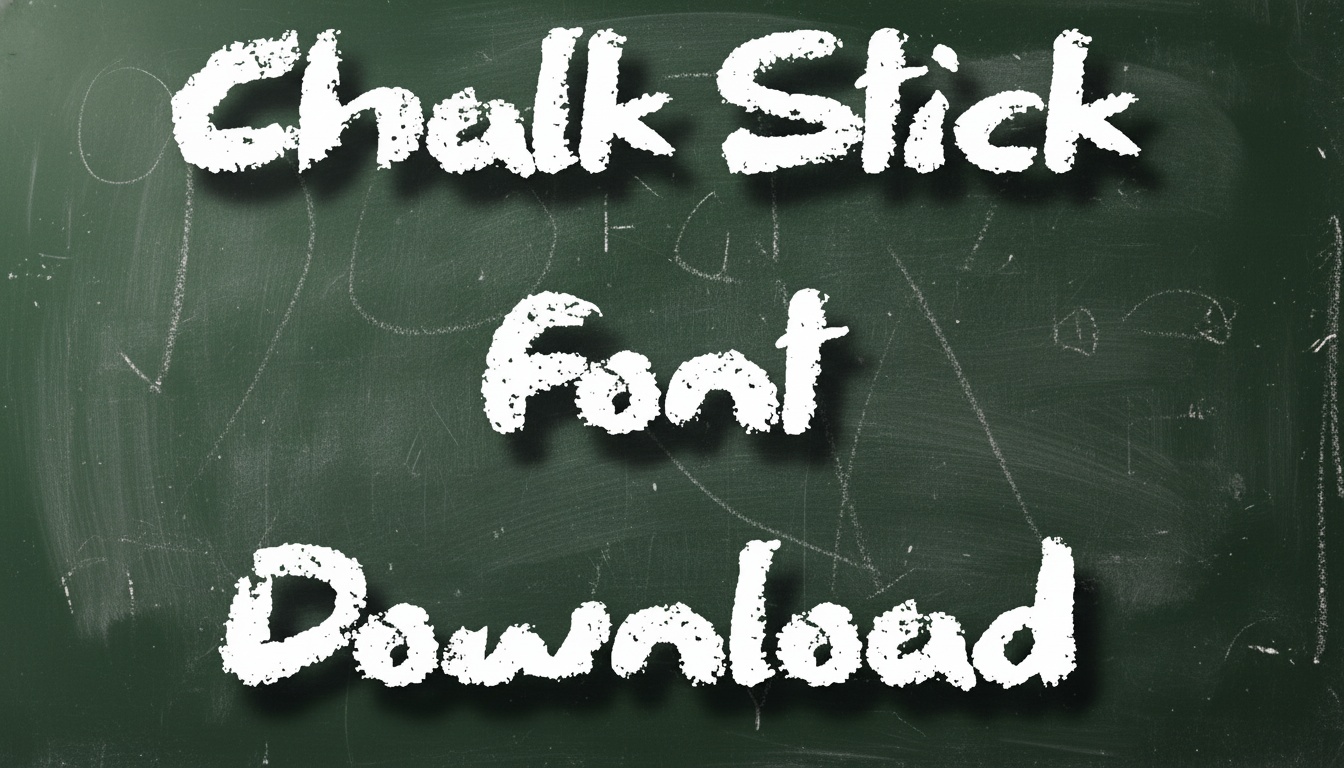
Chalk Stick
Chalk Stick is a trash font designed by Jonathan S. Harris and published by Jonathan Stephen Harris (2019). Rough edges and a worn, distressed texture give it a raw, DIY look. It's a free download, and you can try it with your own text in the preview above first.
- Designer: Jonathan S. Harris
- Publisher: Jonathan Stephen Harris
- Category: Trash font
- Glyphs: 215
What You Can Type With Chalk Stick
You get every letter from A to Z in both cases and all the numbers from 0 to 9, which means Chalk Stick can handle full sentences, dates and prices. Everyday marks like &, !, ? and @ are there too. Thanks to its accented letters, it also works for Spanish, French, German, Portuguese and Italian, not just English.
Where Chalk Stick Works Best
Think of Chalk Stick for grunge posters, band merch and edgy headlines. The file has no kerning data, so in logos and big titles check pairs like AV, To and Wa and tighten the spacing by hand. The texture shows up best at large sizes. Small text can turn into a blur, so save it for headlines.
Who designed Chalk Stick font?
Does Chalk Stick support accented letters?
Yes. Chalk Stick includes the accented letters needed for Spanish, French, German, Portuguese and Italian, so it works for more than just English.
What fonts pair well with Chalk Stick?
Pair it with a clean sans serif so the rest of your design stays easy to read.